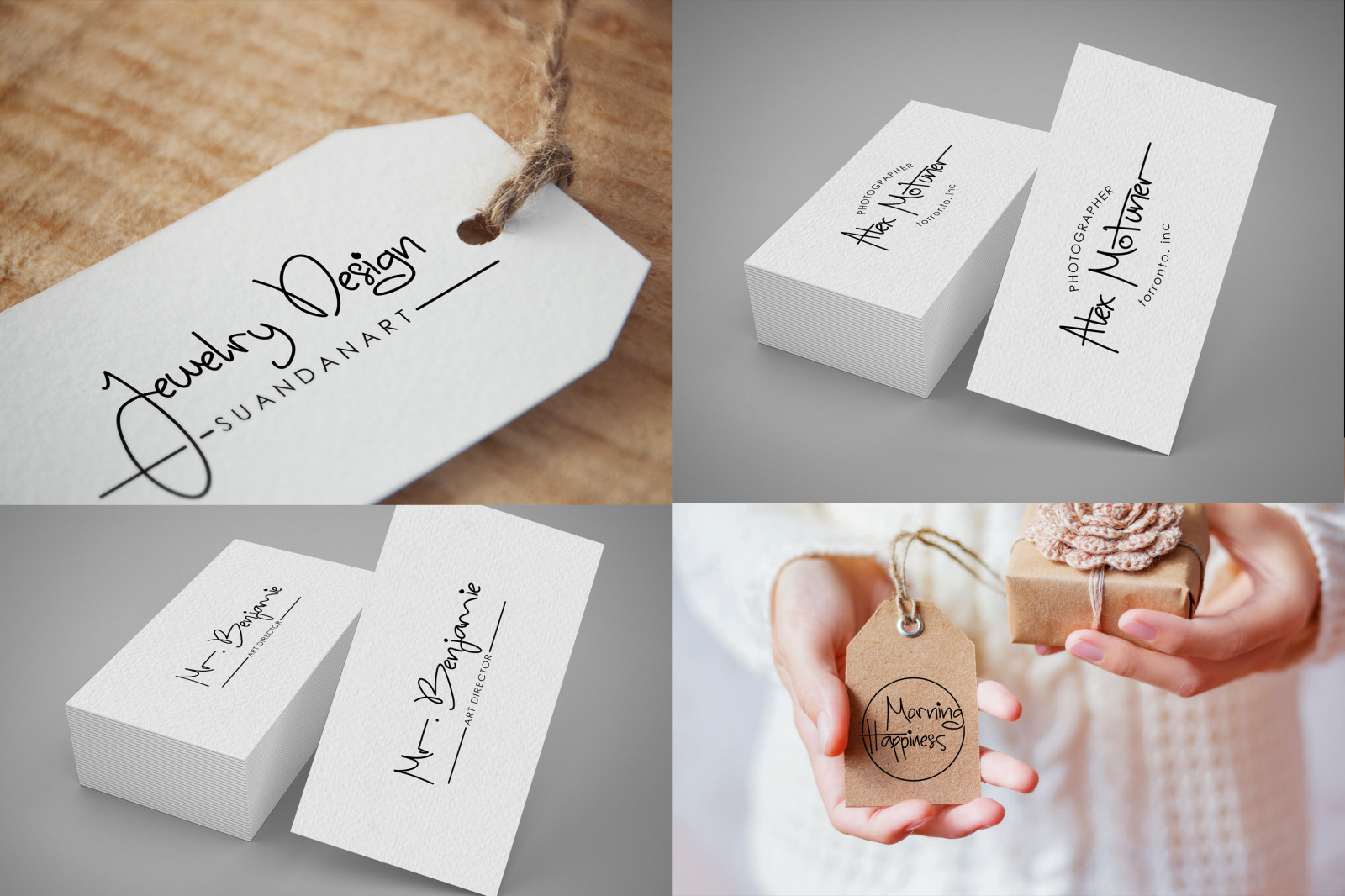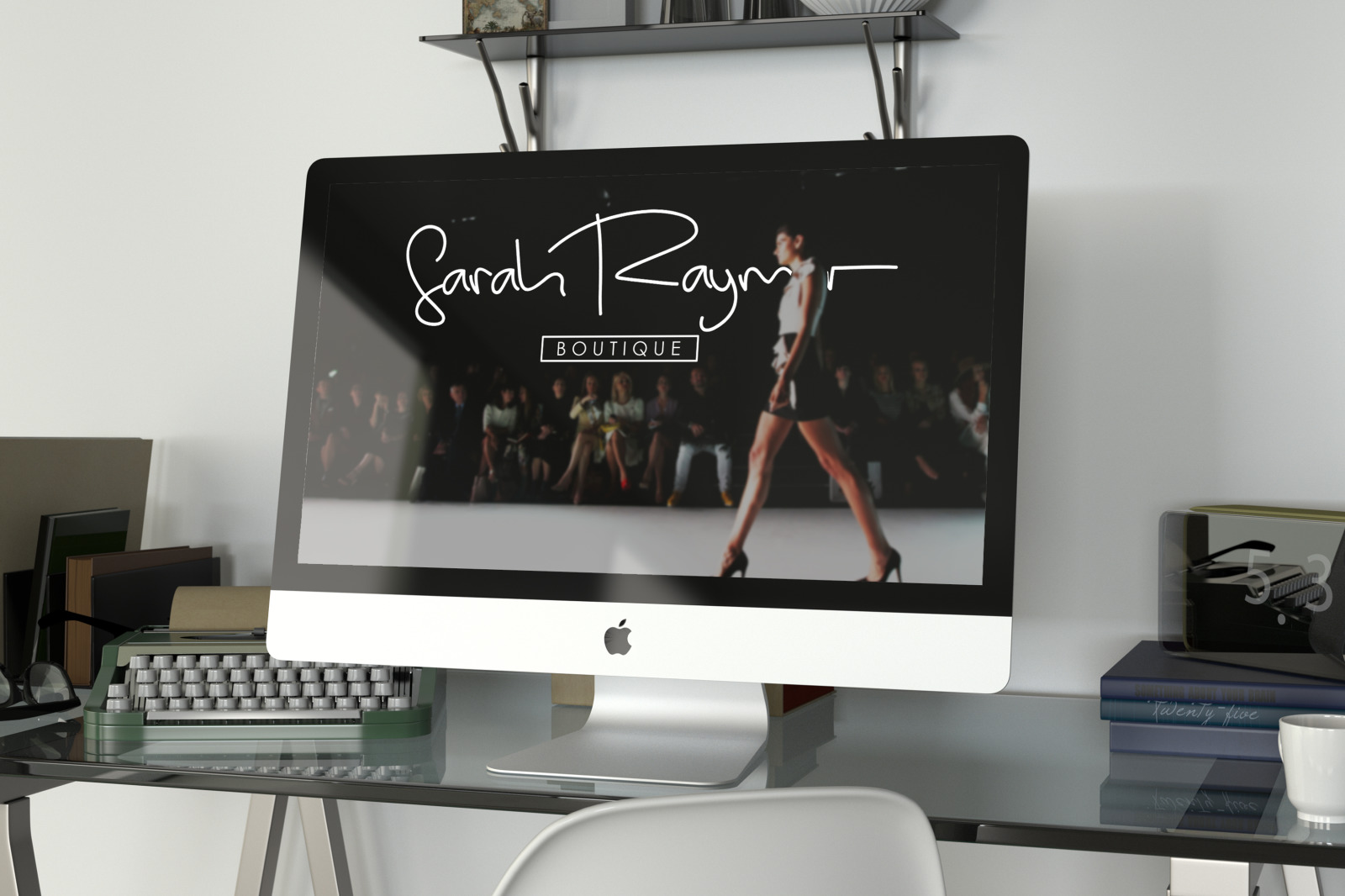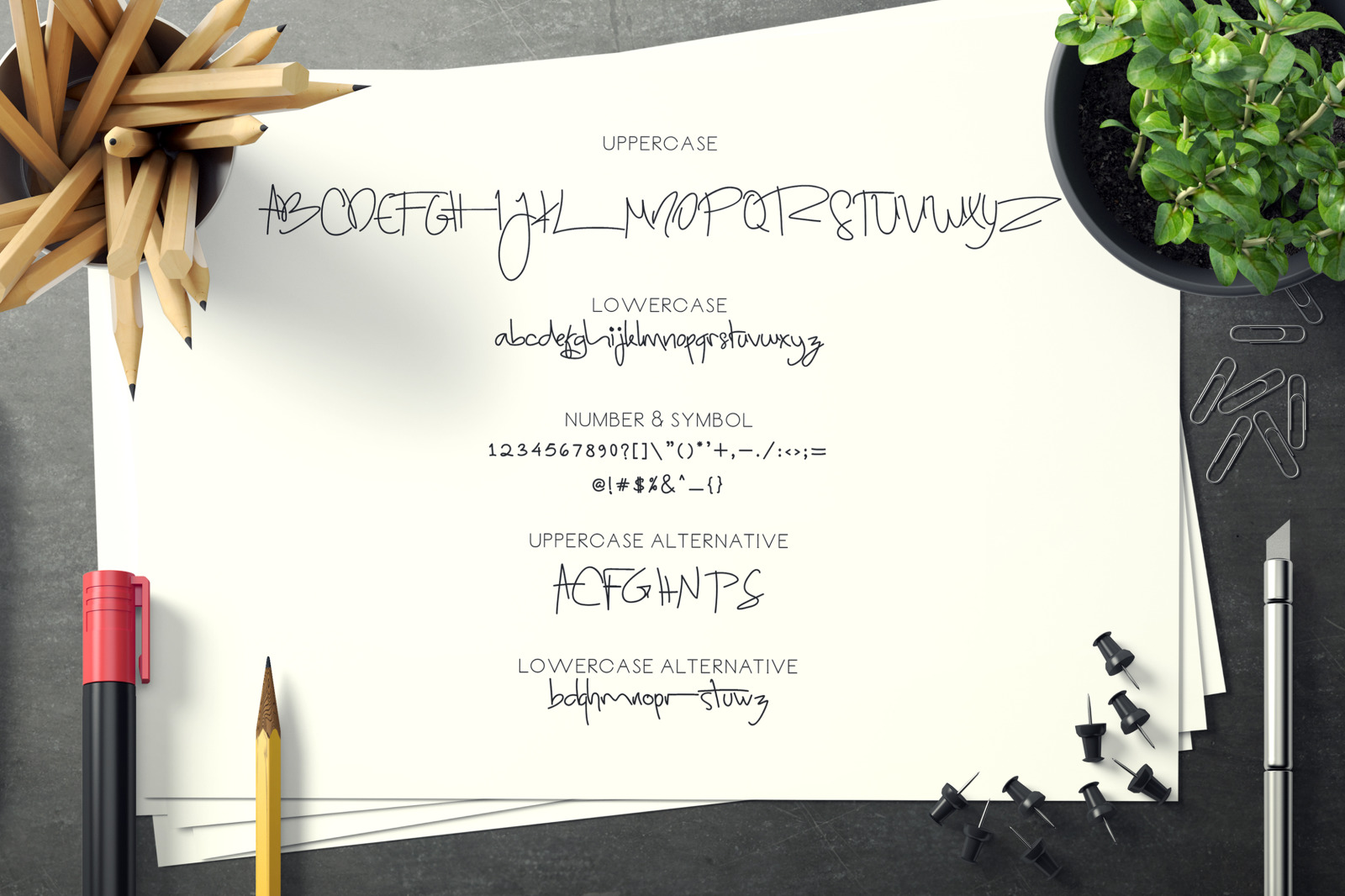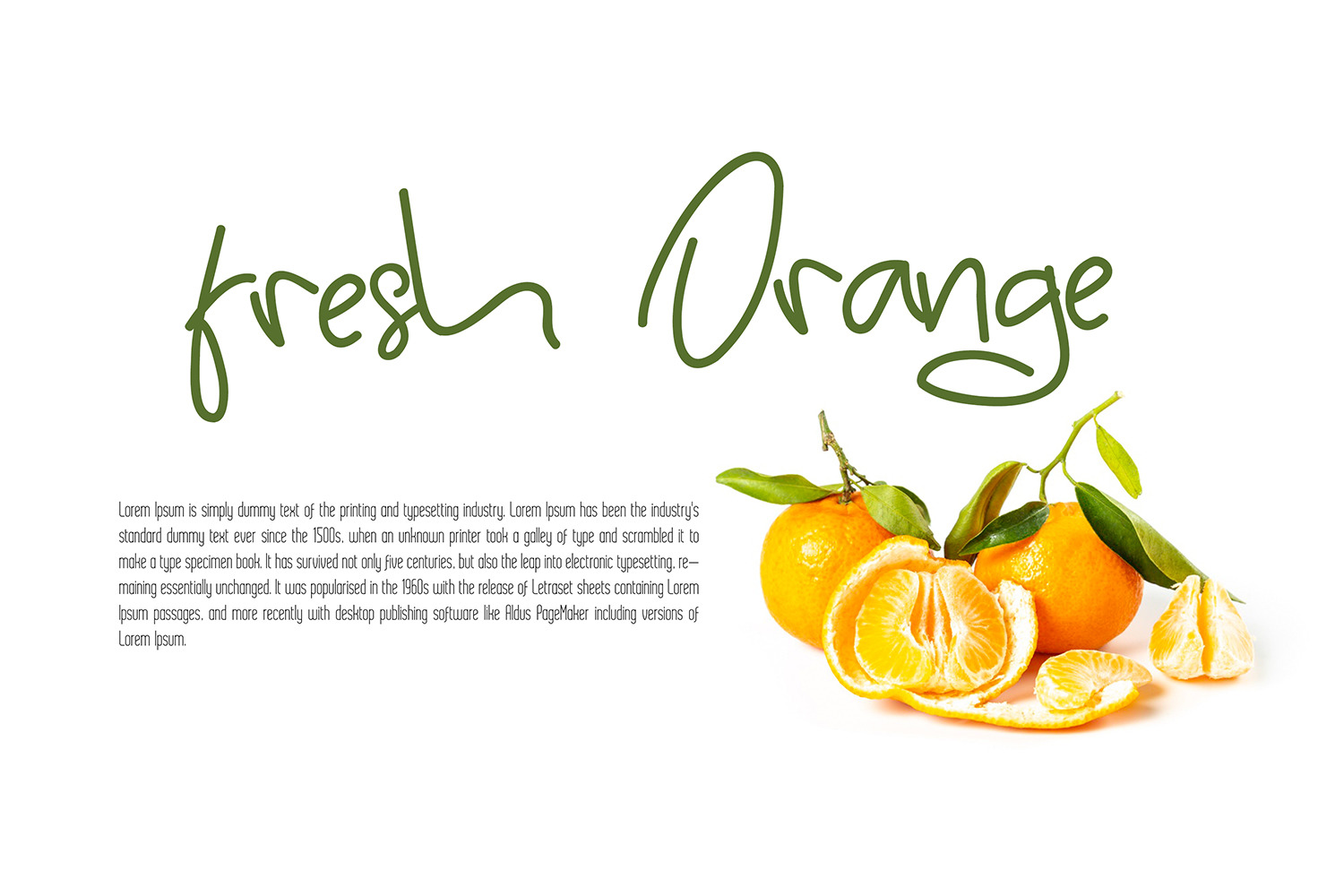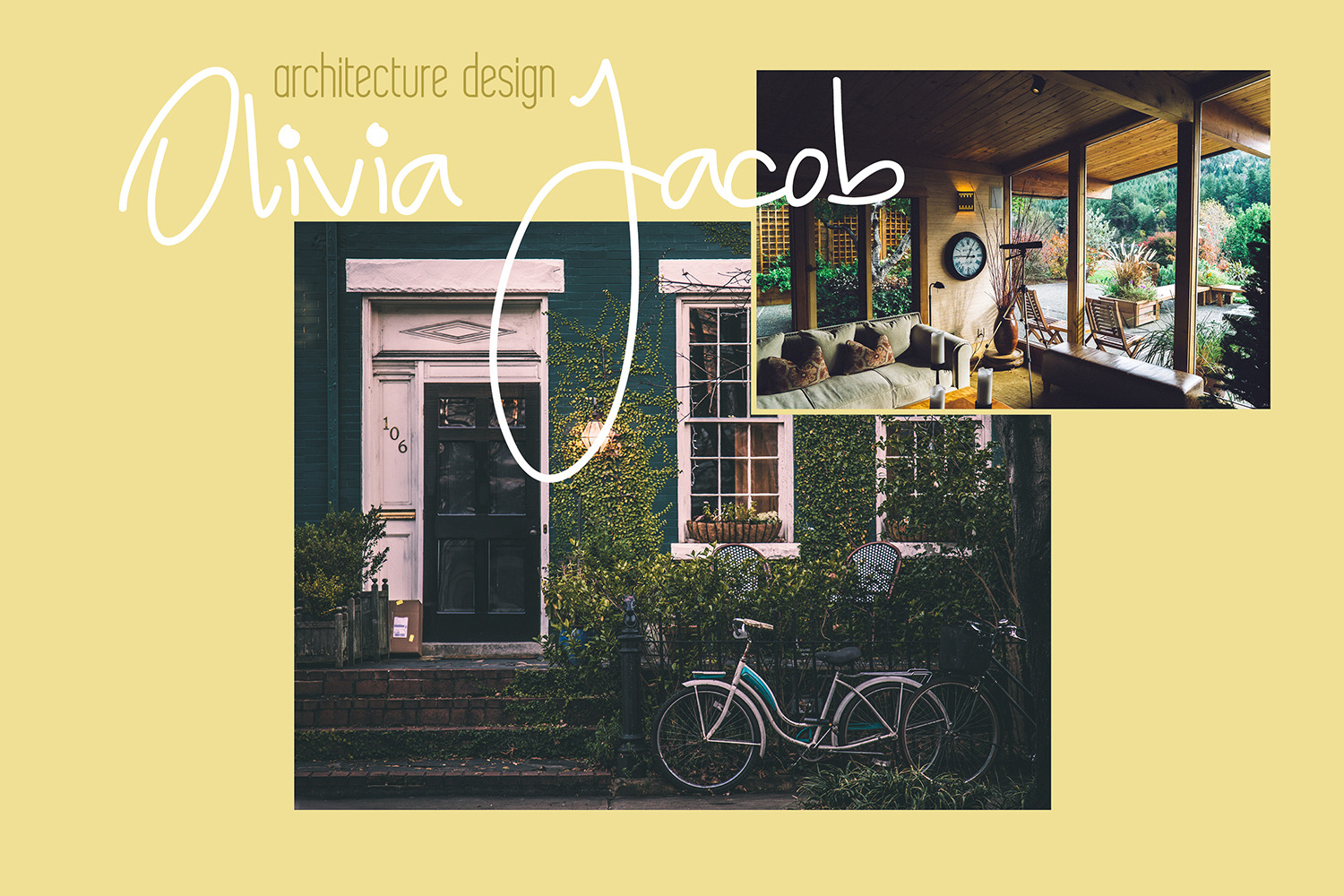
Sugar Candy - signature typeface
Sugar Candy is a Signature typeface font inspired from classic handwriting style. Suitable to create any branding, product packaging, invitation, quotes, t-shirt, label poster etc.
Feature
- UPPERCASE
- lowercase
- Number & Symbol
- Alternative UPPERCASE
- Alternative lowercase